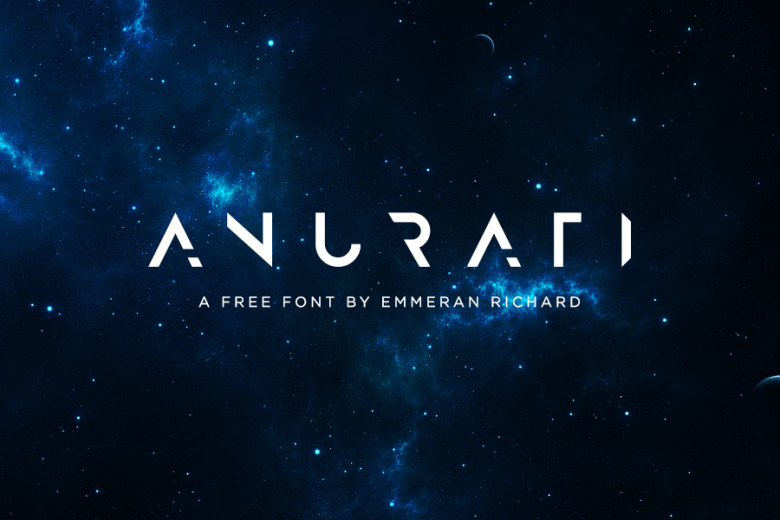
Anurati Font
Anurati Font is a new futuristic font, originally made to be free. This font makes way for the creativity of each and every one. It’s a futuristic font. It consists of simple geometric forms. Anurati Font free for both personal use only. It will be good for game interfaces, posters, movie and web design.